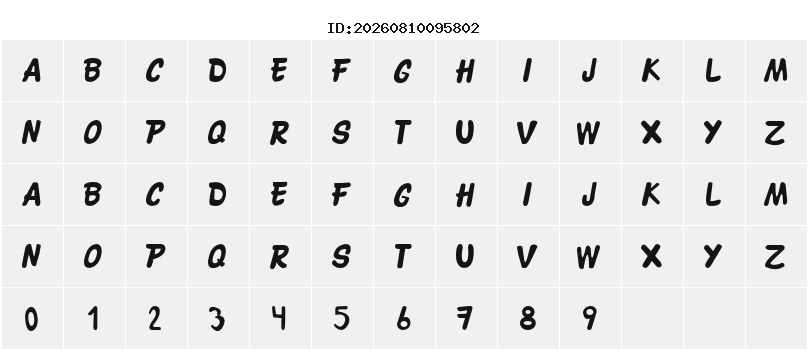
PATRONATO 21 Preview
• Font Name: PATRONATO 21
• Full Font Name: PATRONATO 21
• PostScript Name: PATRONATO21
• Character Count: 88
• Designer: MARCELO OMEGNA
• Manufacturer: SHAKING SHELATO
About PATRONATO 21.ttf
PATRONATO 21.ttf is a modern, elegant sans-serif font designed for ultimate readability and visual harmony. Perfect for branding, headlines, web design, and print materials.